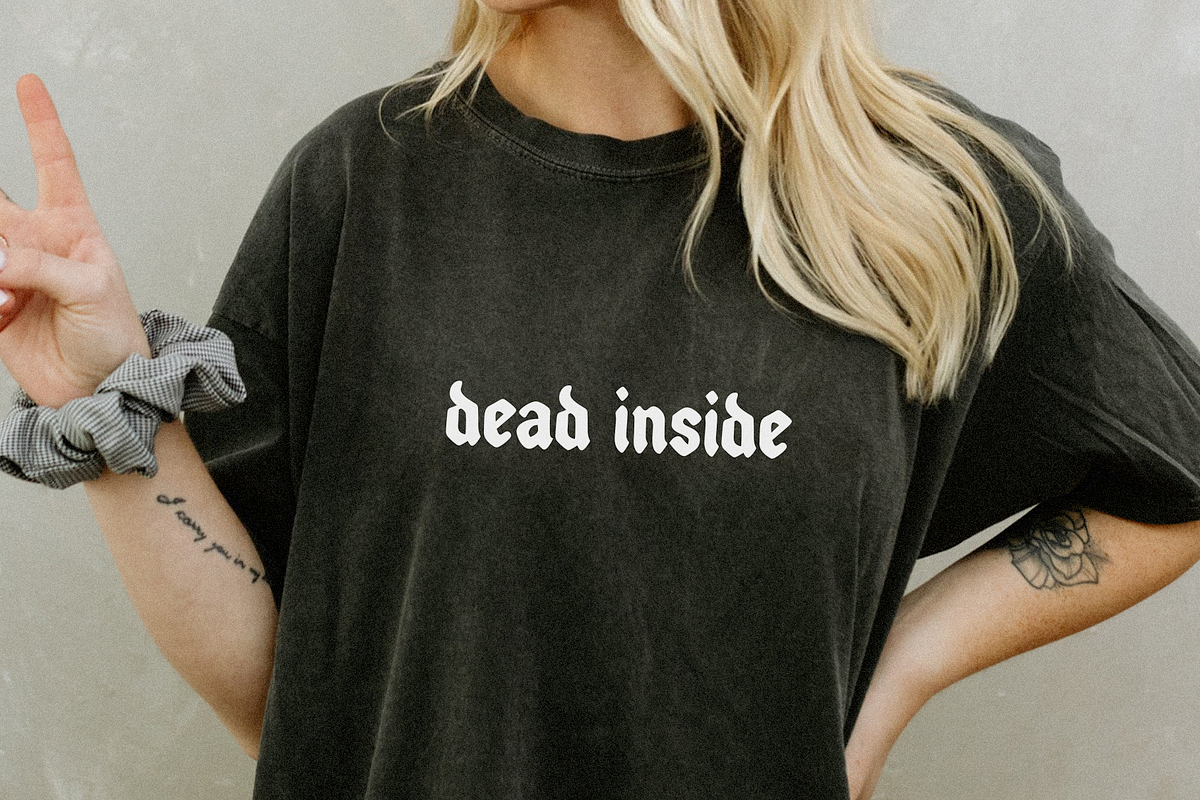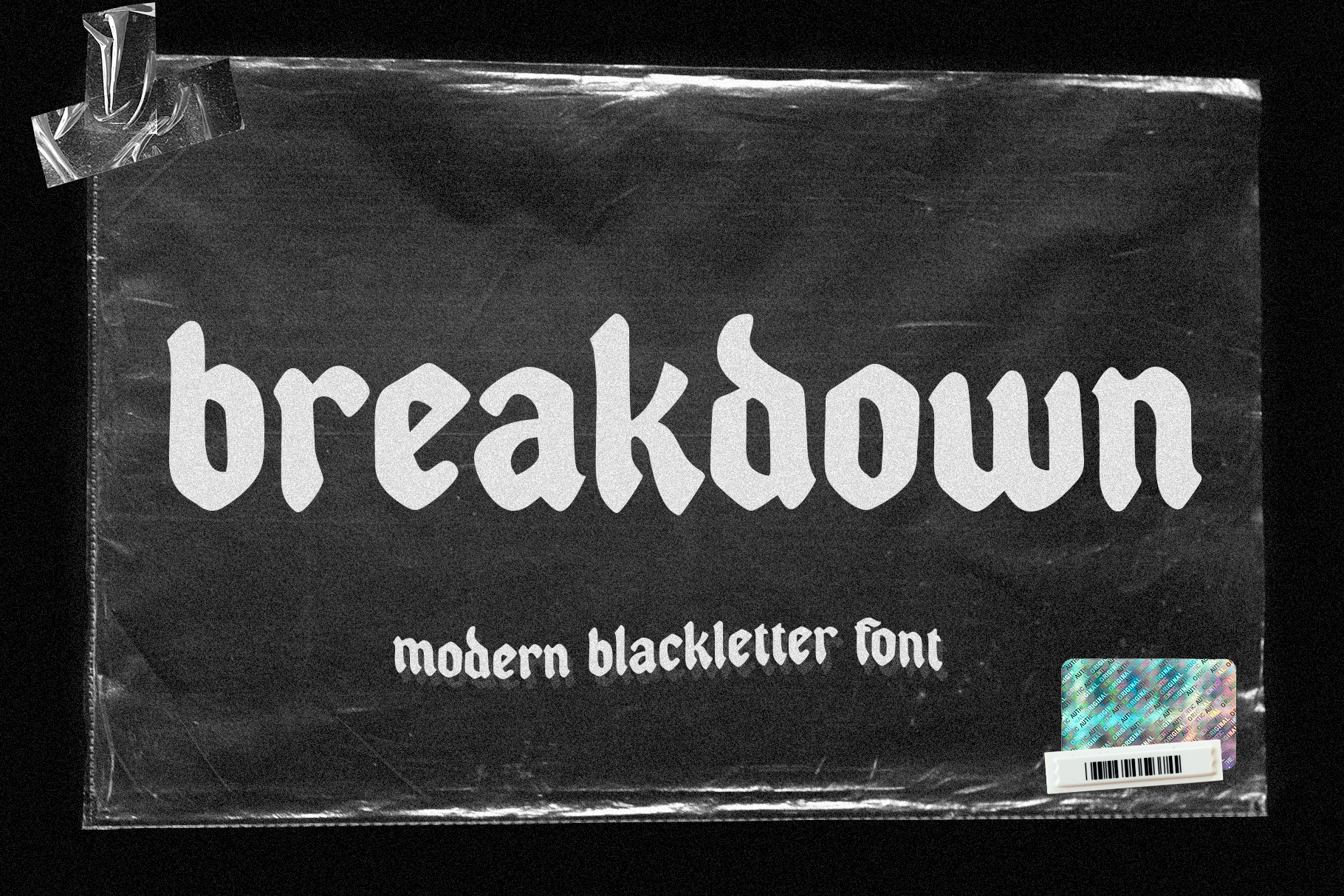
Breakdown | Modern Blackletter Font
Breakdown is a modern look to a classic.
This blackletter font is perfect for logos, branding, packaging, advertisements, shirts, mugs, hats, stickers, music covers and more!